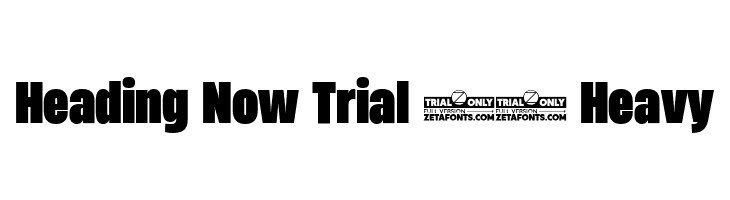
A bold, heavy font ideal for impactful headlines and titles.
A bold, modern font with clean lines and excellent readability.
A bold, modern typeface perfect for impactful headlines.
A bold, heavy typeface ideal for impactful headlines.
A bold, modern sans-serif font with geometric influences.